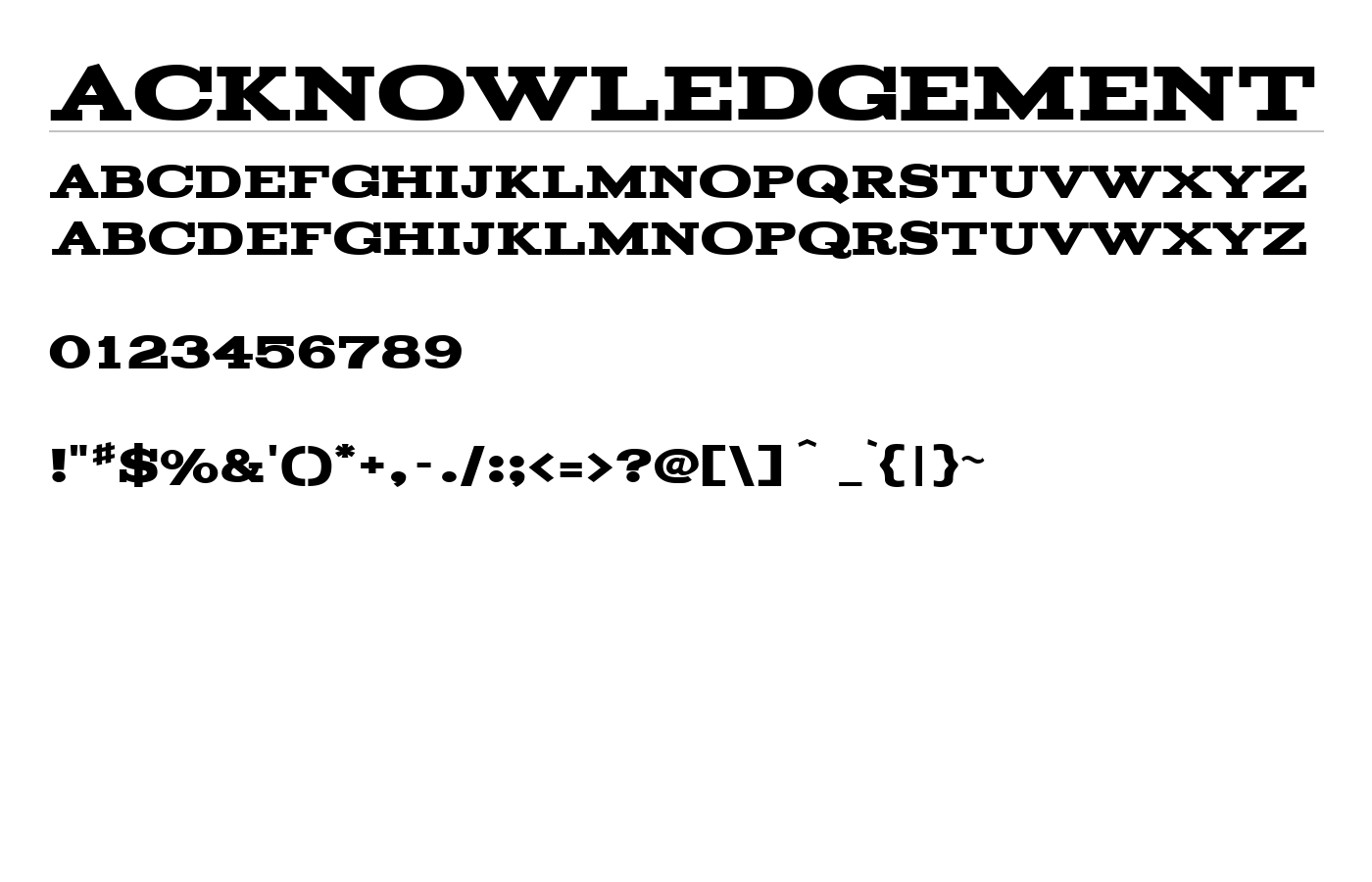
Acknowledgement is a bold, slab serif font with a strong and assertive presence. Its thick, blocky serifs and high contrast between strokes give it a classic yet sturdy feel, making it ideal for impactful headlines, logos, and branding that require a vintage or industrial touch. This typeface works best where clarity and emphasis are key, offering a confident and timeless look for editorial, packaging, and display use.
Acknowledgement Font
About Acknowledgement Font